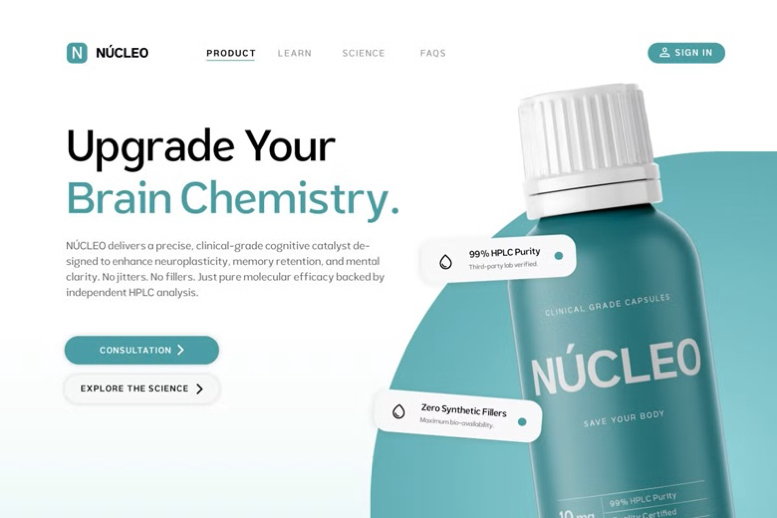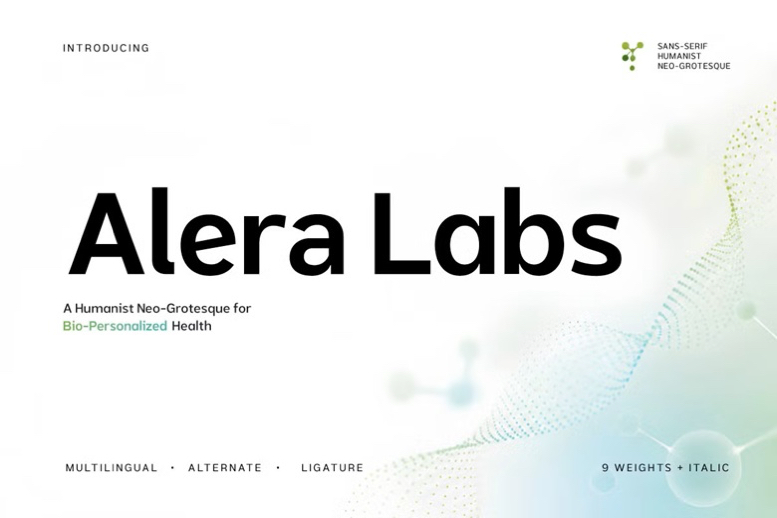
Alera Labs Font is a modern humanist sans-serif typeface with clear letterforms, balanced proportions, and a clean scientific character. Designed by Productype, it combines approachable readability with a polished professional presence.
Its precise yet friendly style suits health technology, nutrition brands, wellness platforms, science-focused products, mobile apps, websites, packaging, presentations, editorial layouts, logos, and modern brand identities.